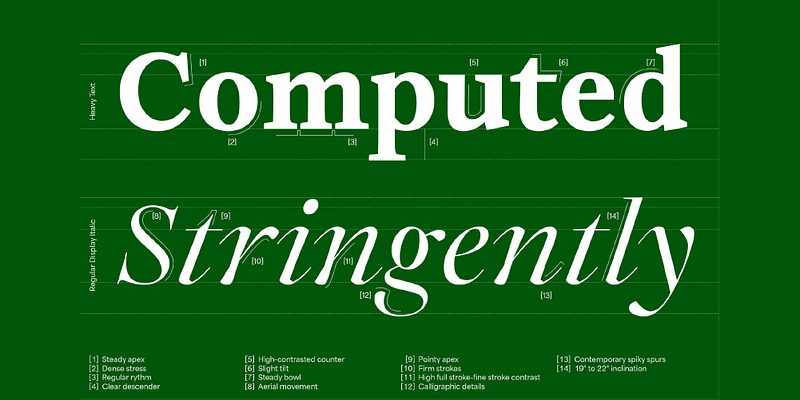
Joly Display Font Free Download is a modern, elegant serif typeface with a high-contrast design and playful, artistic details. Featuring unique letter shapes and stylish ligatures, this font is perfect for high-fashion branding, editorial headlines, luxury packaging, and creative advertising where a touch of sophistication and flair is needed.
Joly Display stands out with its refined curves and dramatic stroke contrasts, giving your typography a chic, eye-catching appearance. It’s designed for display use—ideal for logos, large titles, and design statements that need to feel bold, stylish, and elevated.